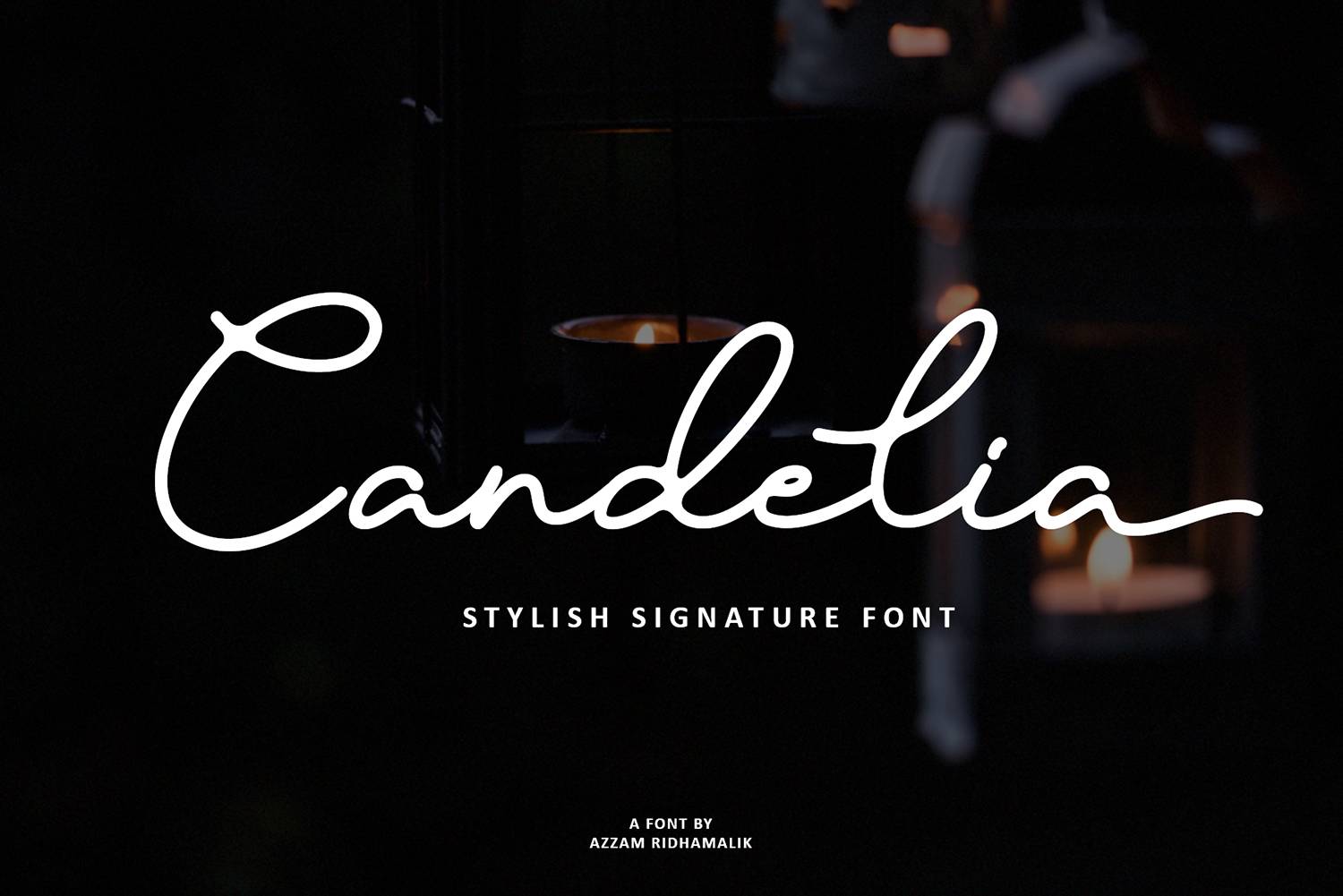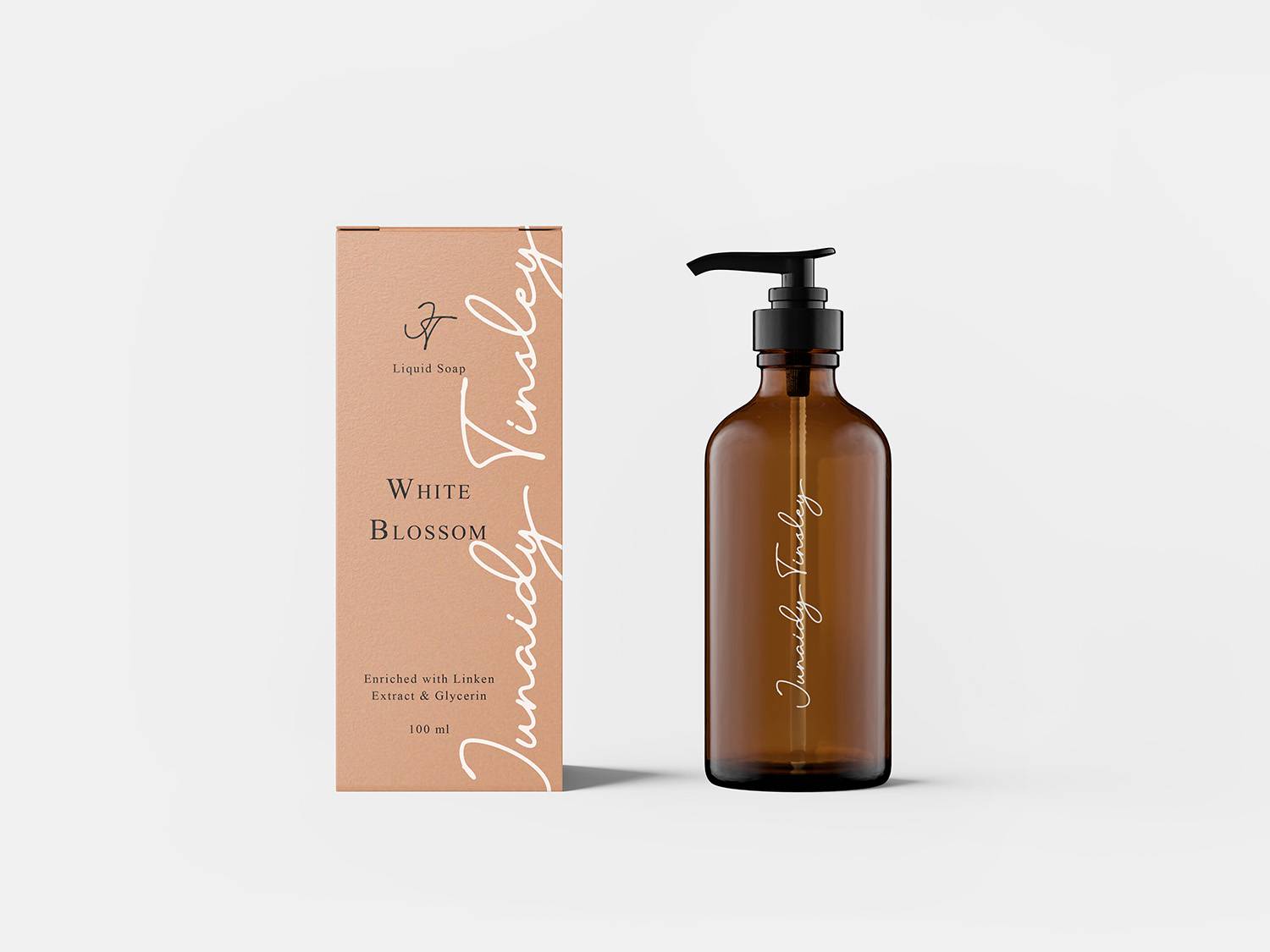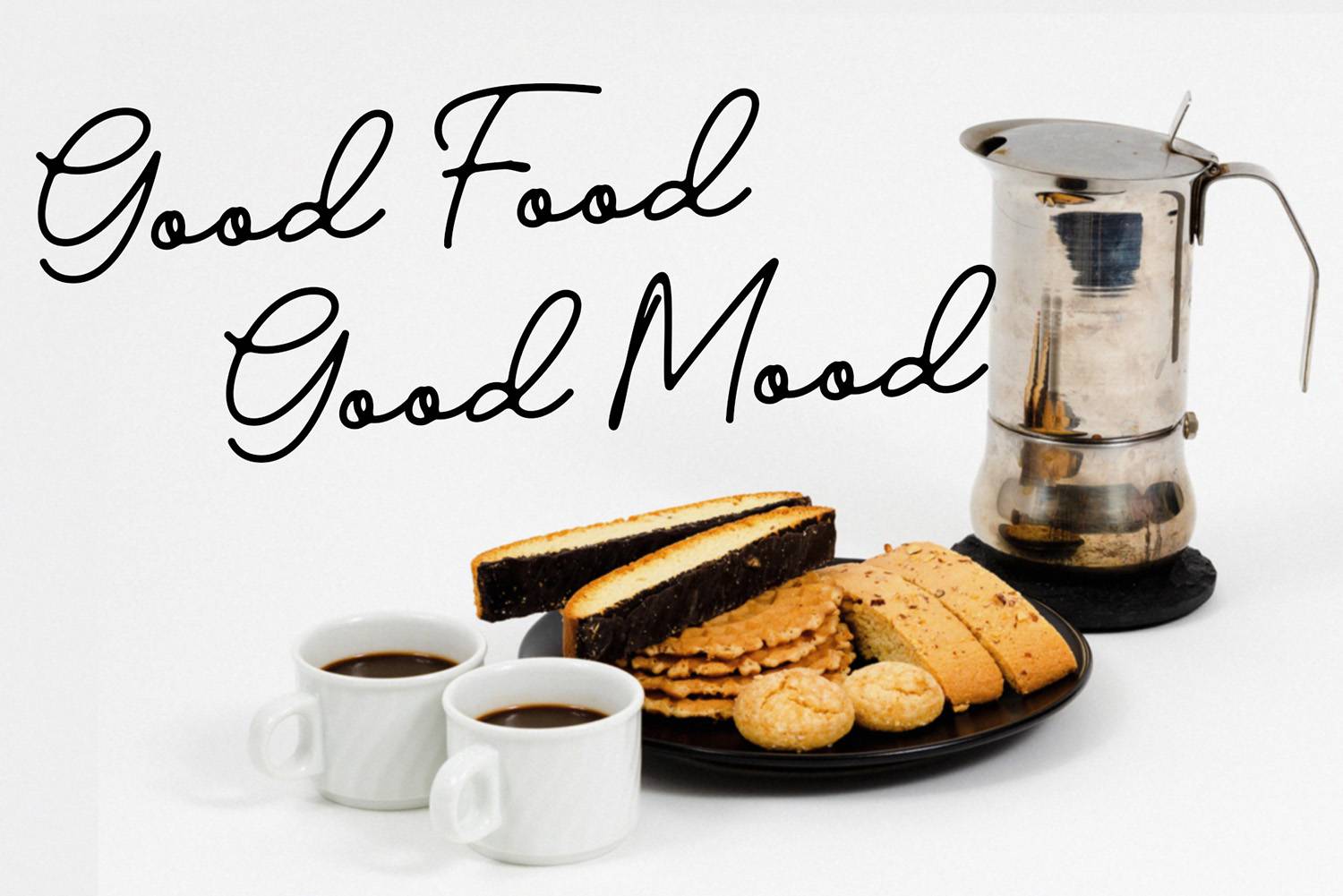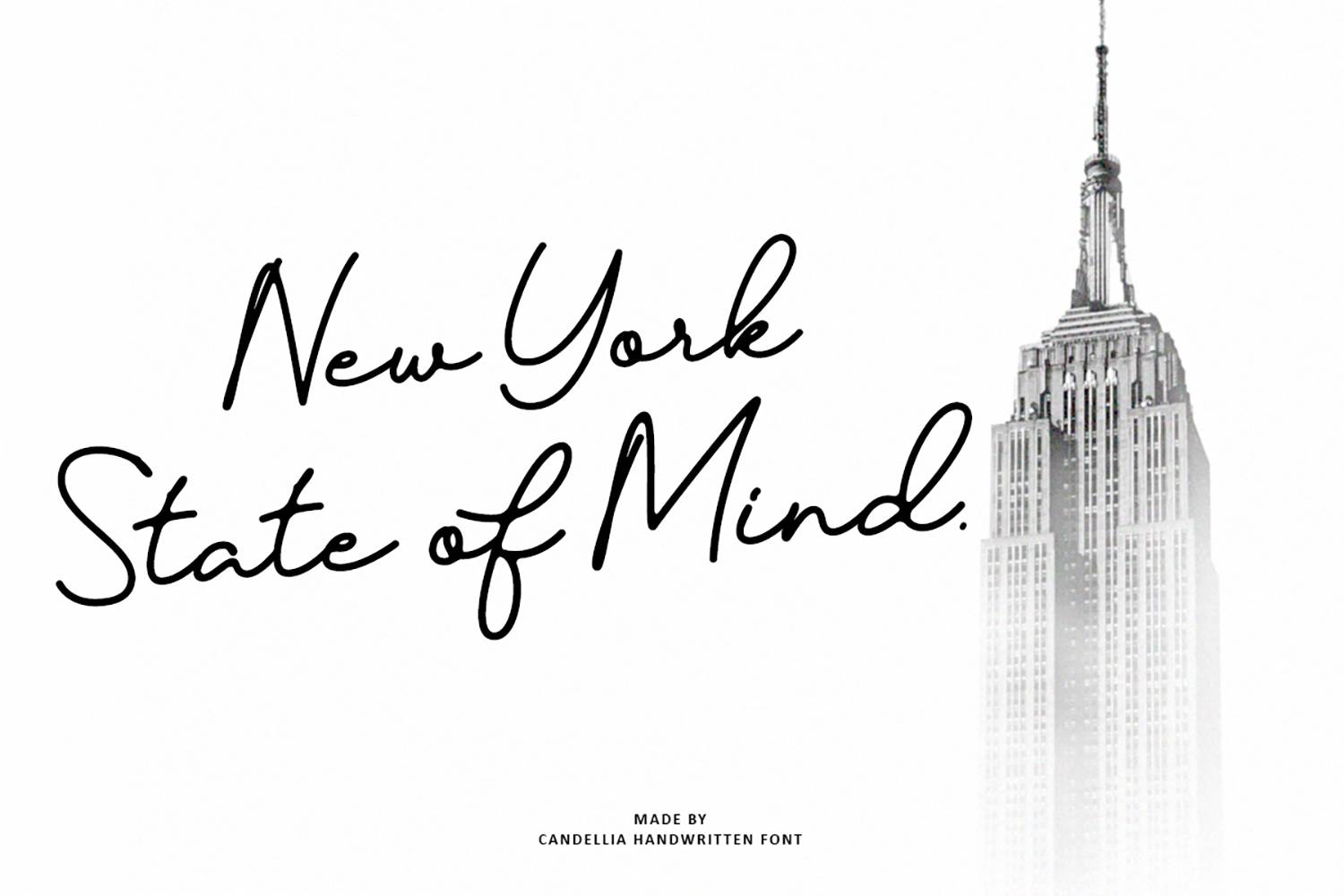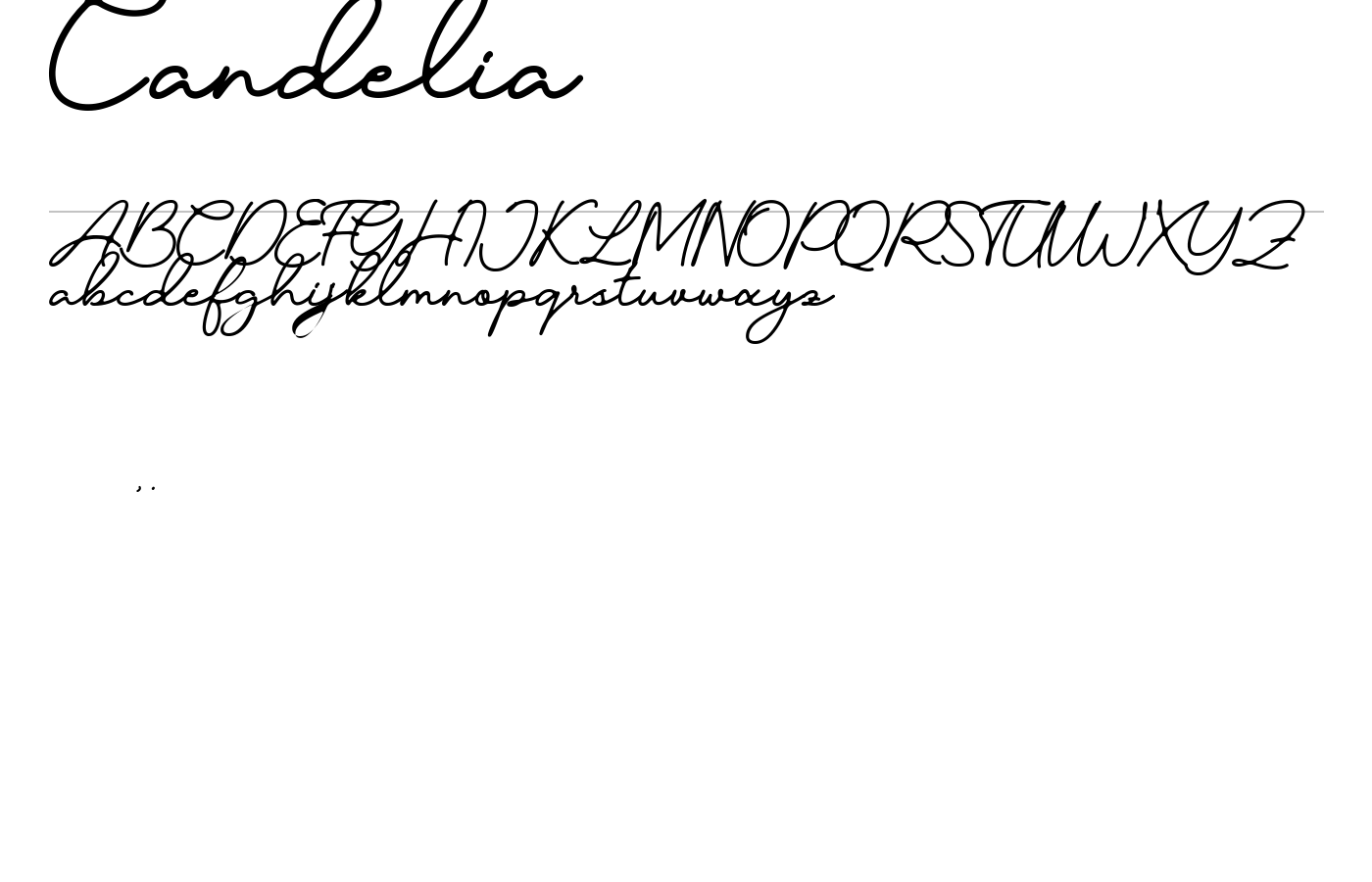
Candelia is a delicate, flowing script font that mimics elegant, hand-written calligraphy with its slender, smooth strokes and graceful connections. It exudes a refined and personal touch, making it ideal for invitations, branding, or any project that seeks a warm, sophisticated, and artistic feel. This font works beautifully in headlines and decorative text where a stylish, handwritten charm is desired.
Candelia Font
About Candelia Font
| Designer | Azzam Ridhamalik |